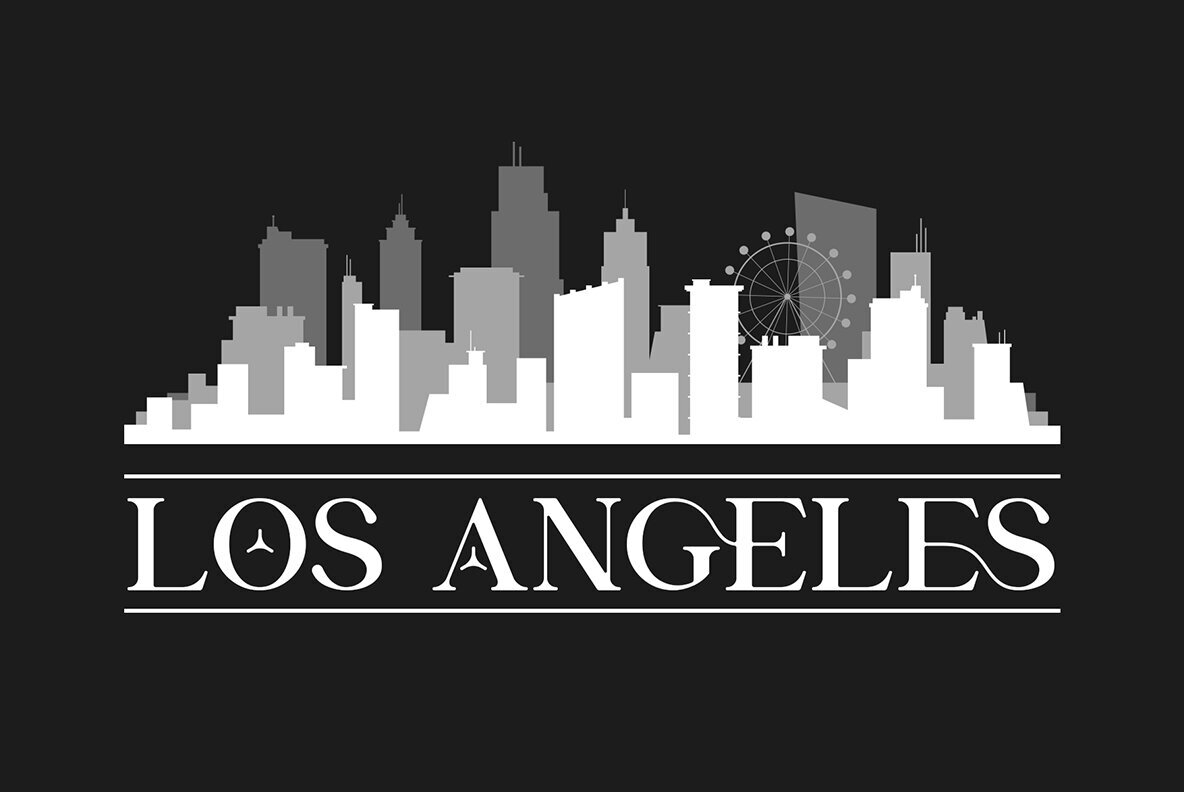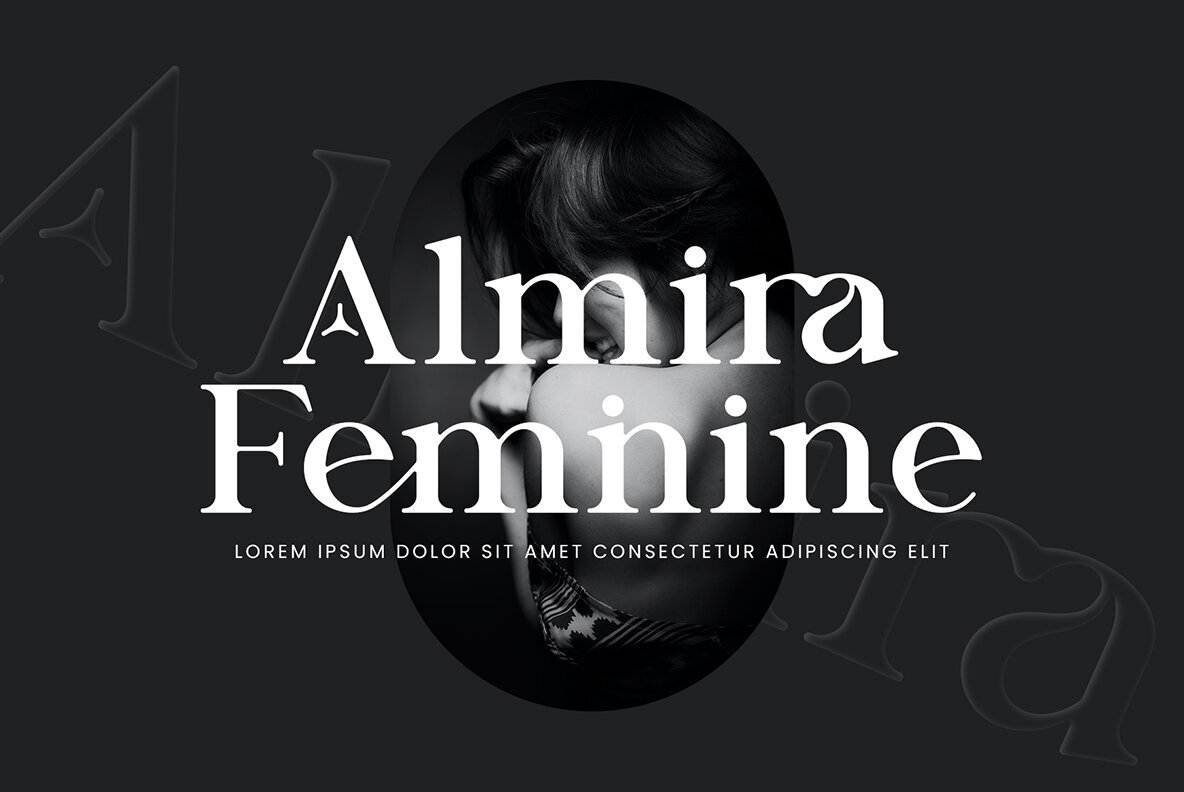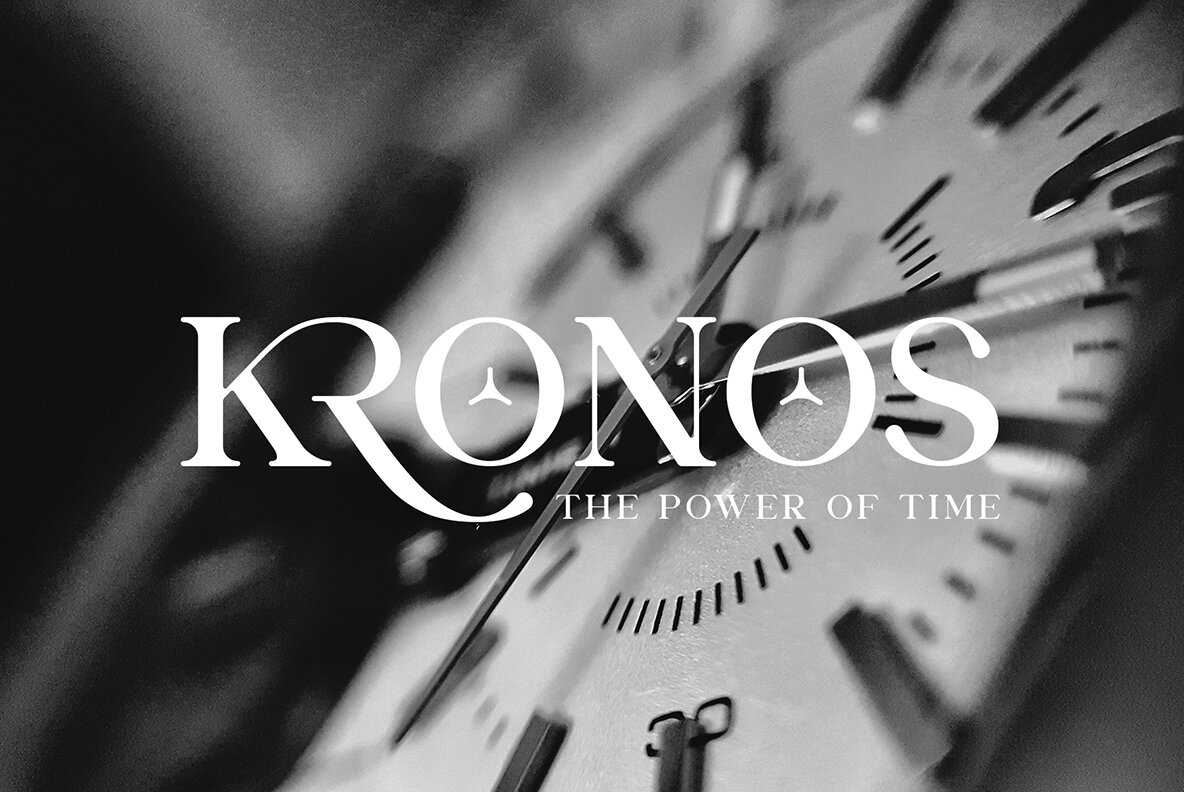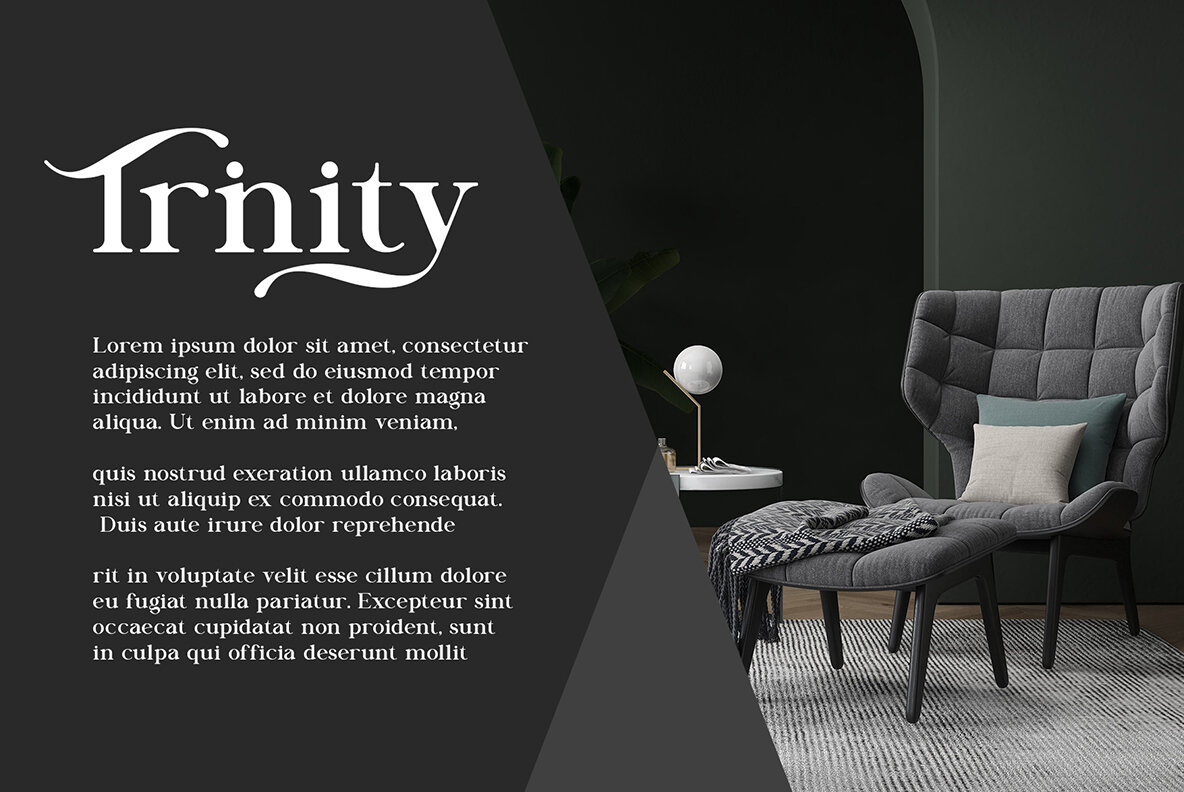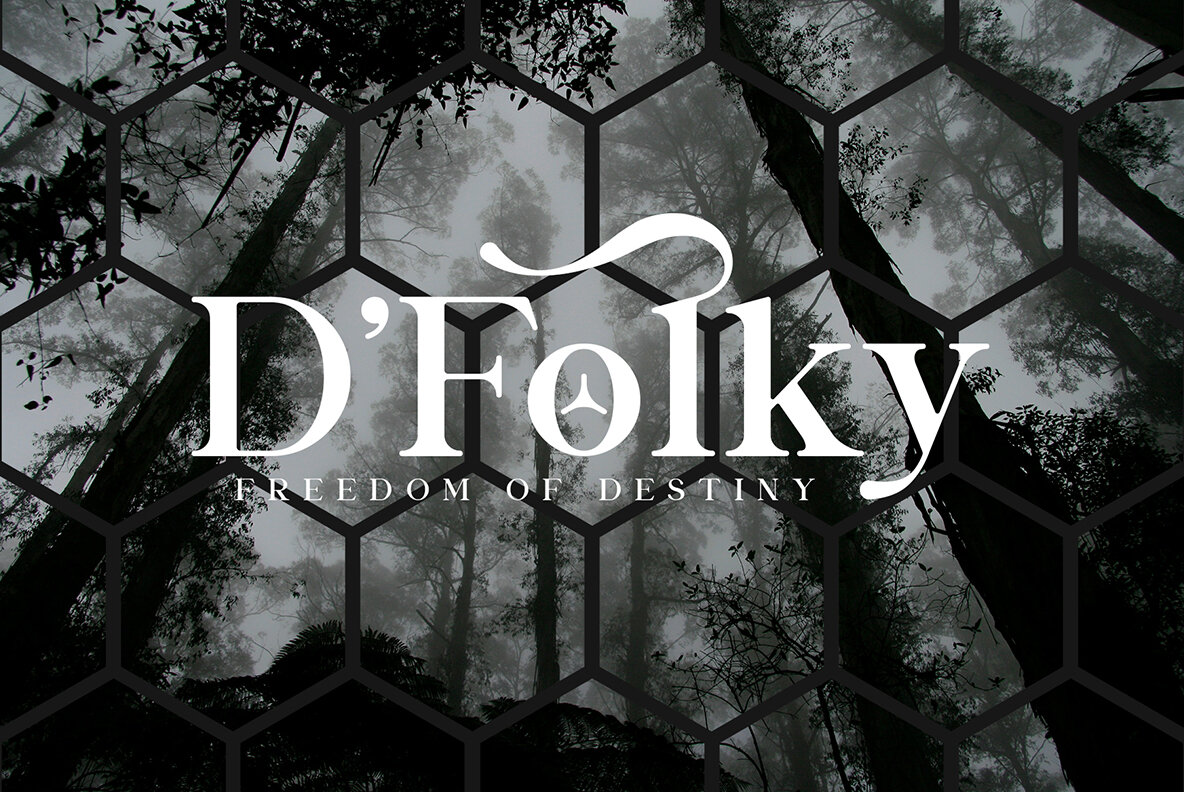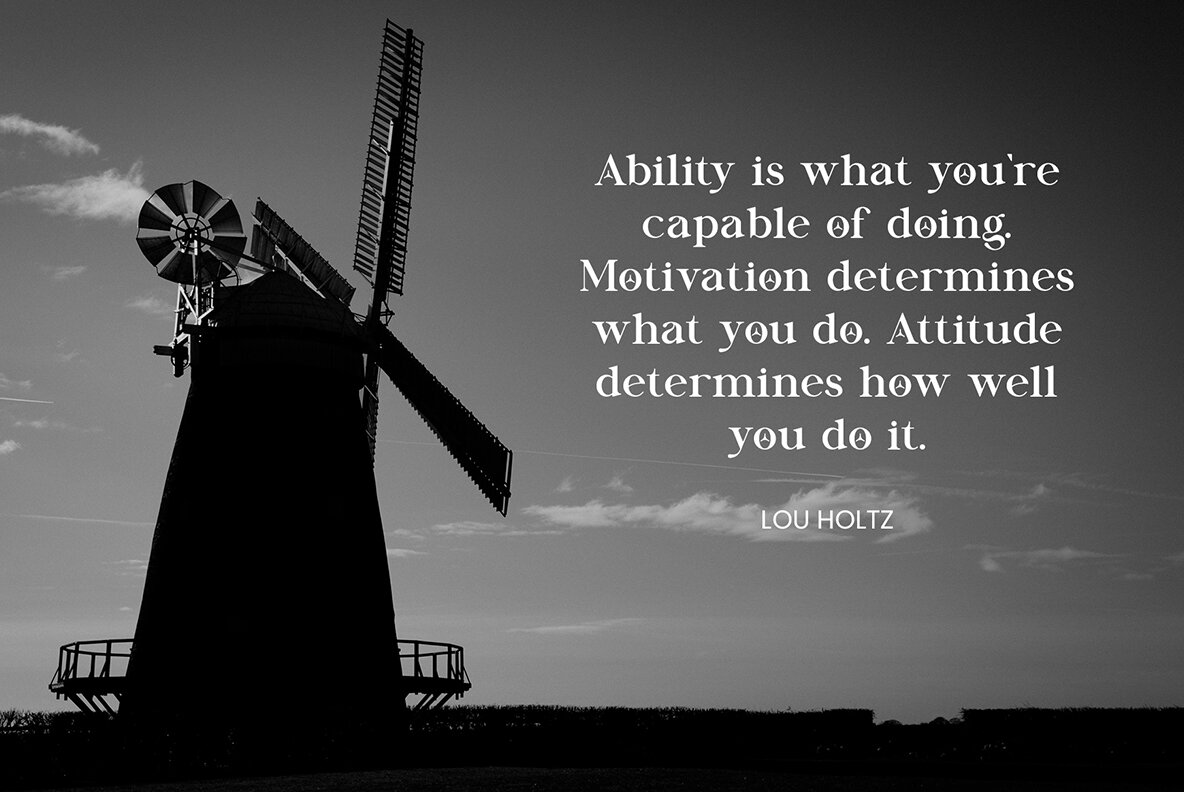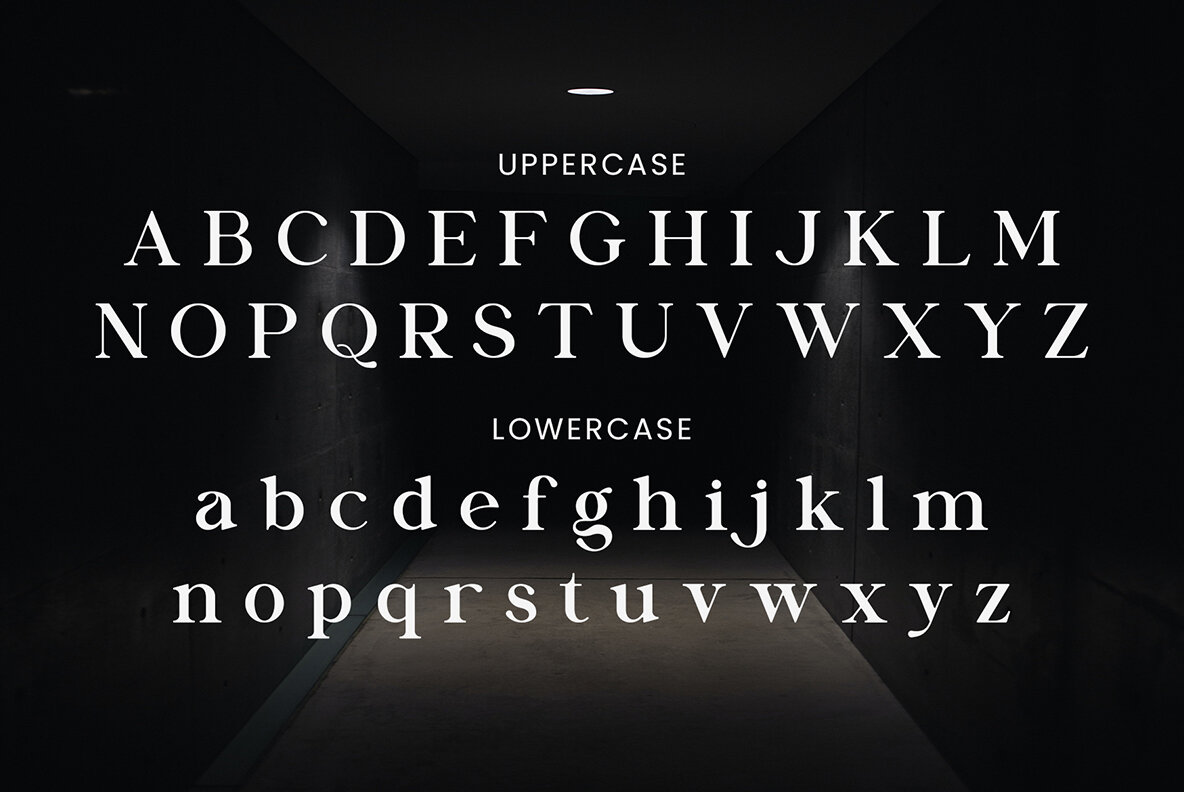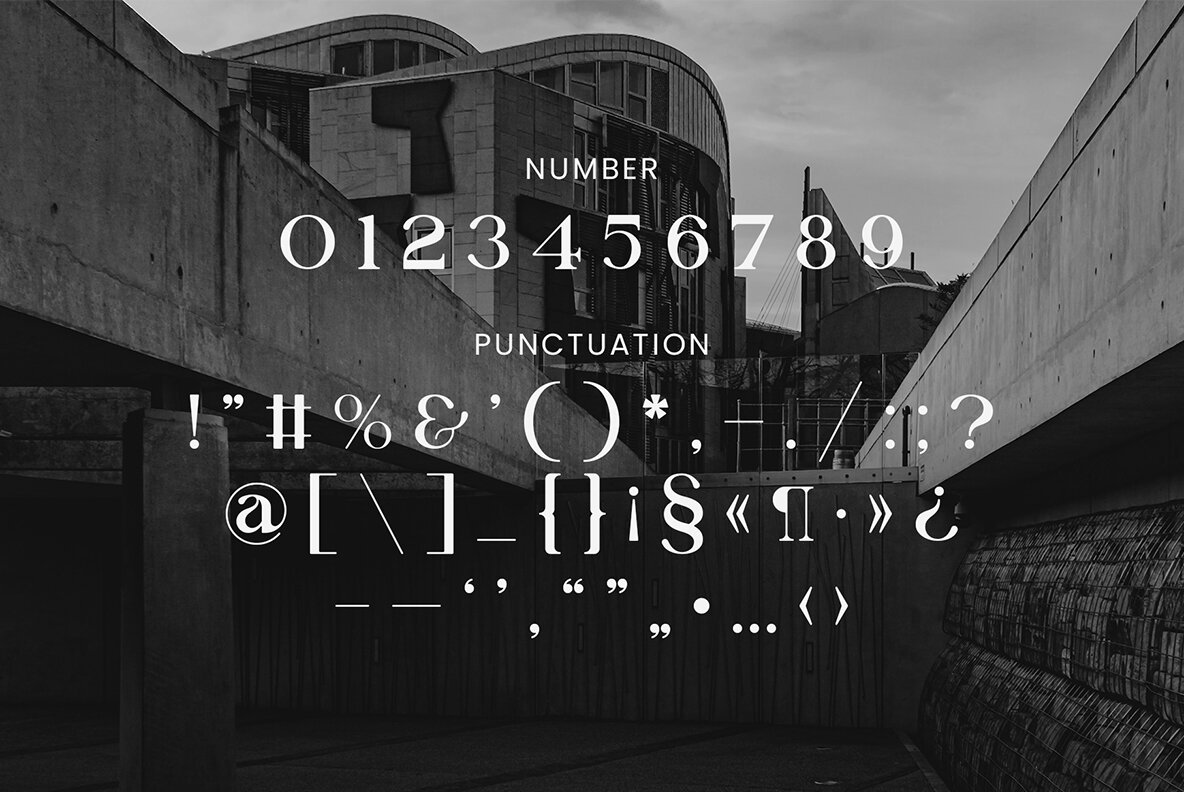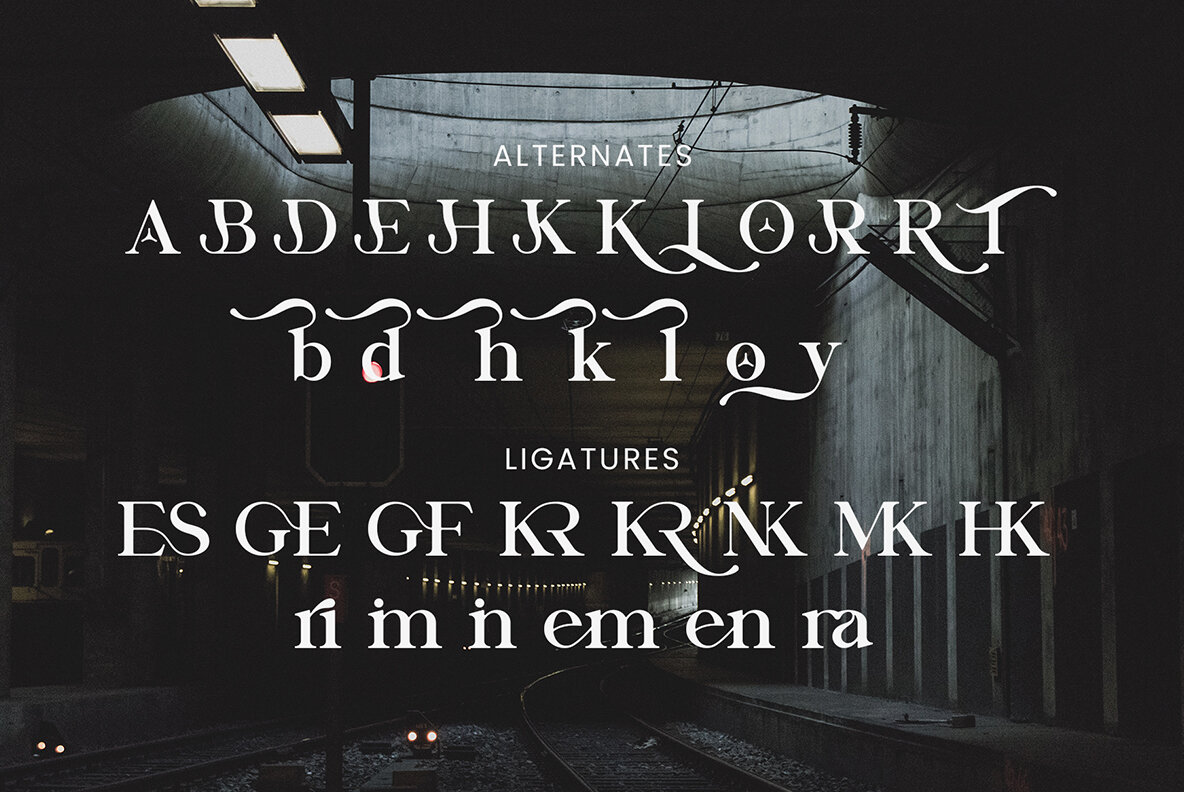
Hazeon Font
Hazeon Regular
Hazeon Serif is a balanced, smooth, elegant and stylish serif font. He has a beautiful character. It fits perfectly with invitation card designs, company logos, movie titles, movie names, business cards, book titles, brand names and various other designs. Hazeon Serif is a subtle serif font that exudes sophistication and elegance. Its stylish alternations and ligatures make this font the perfect partner for any project. FEATURE: